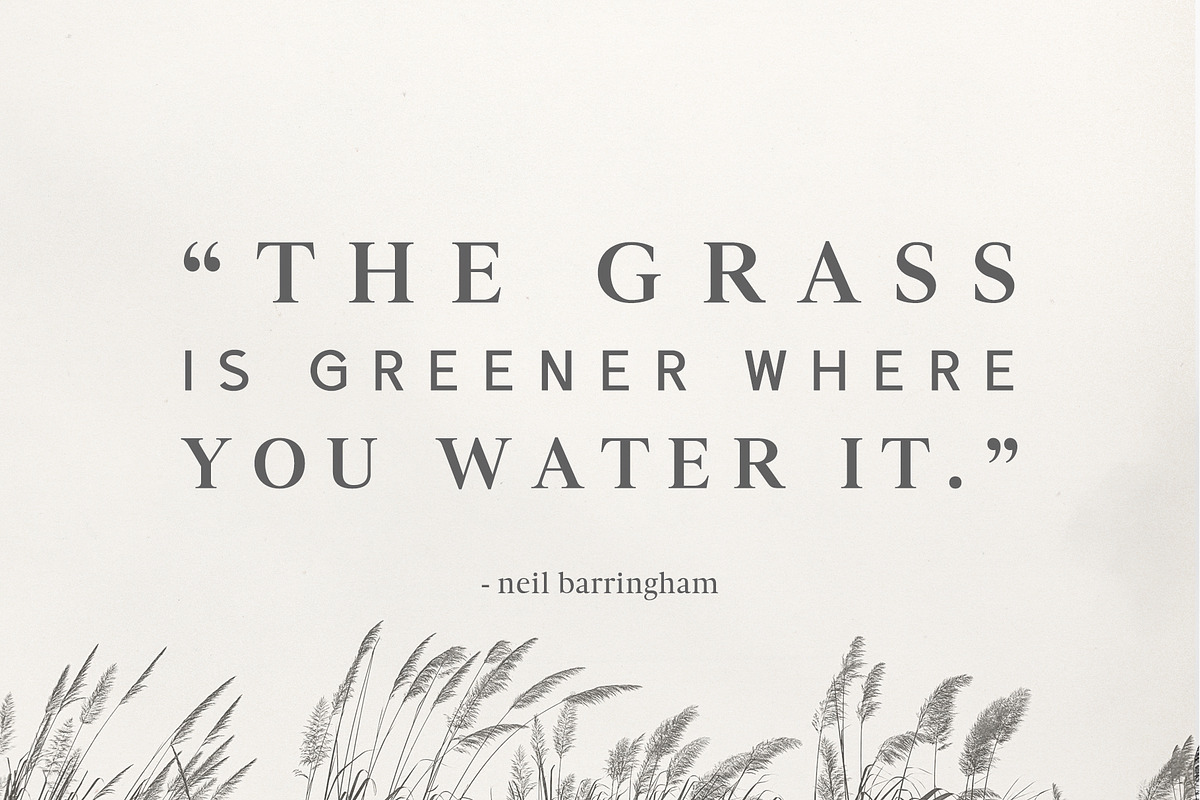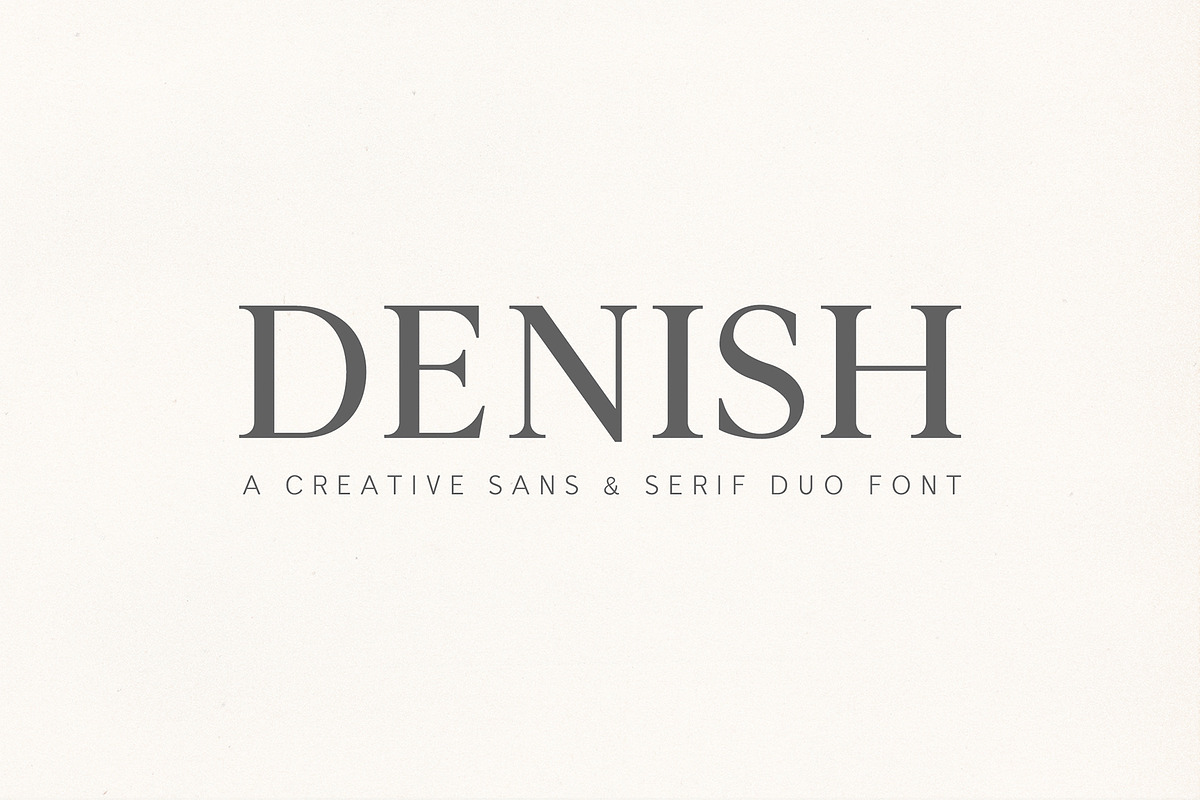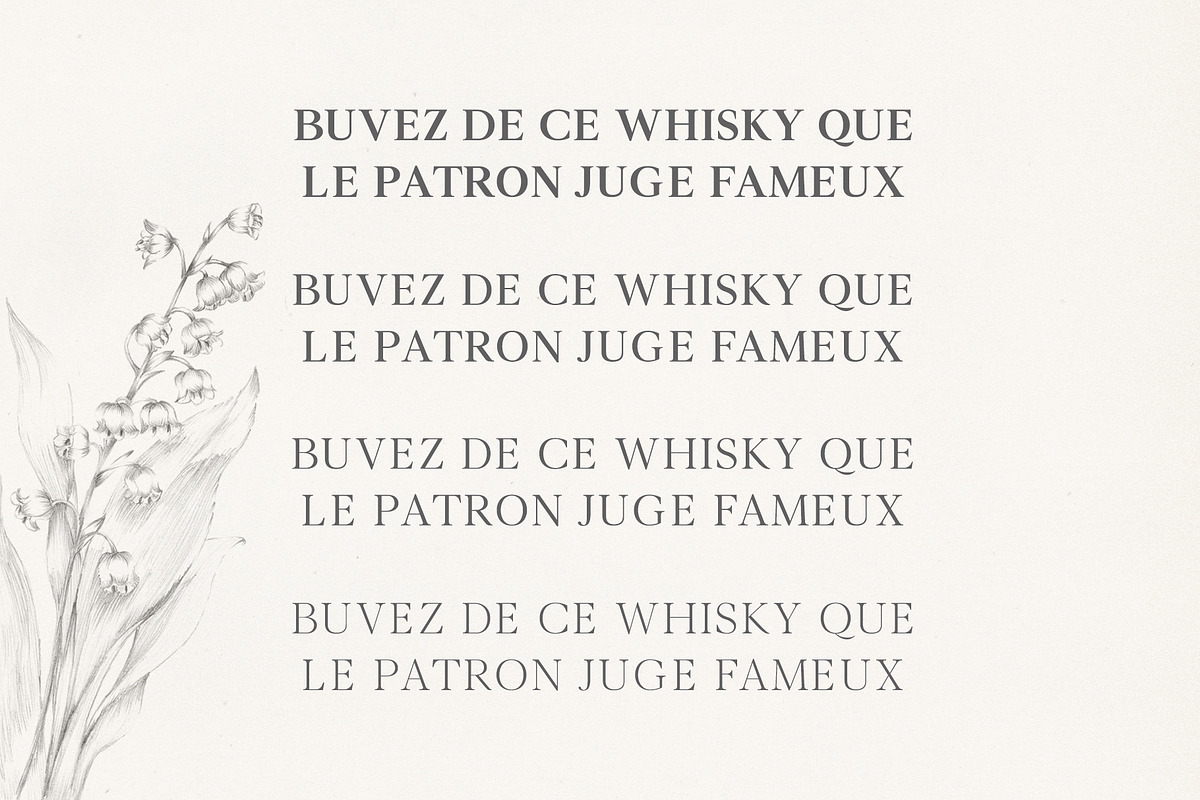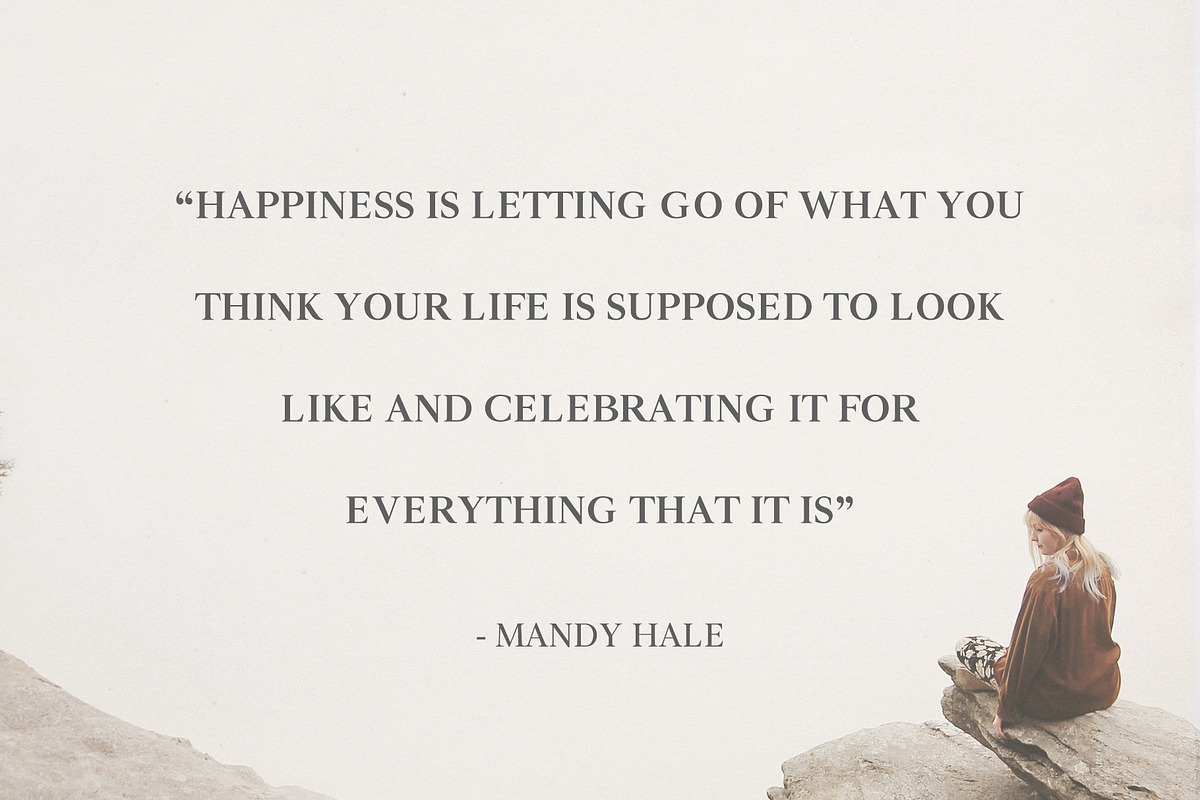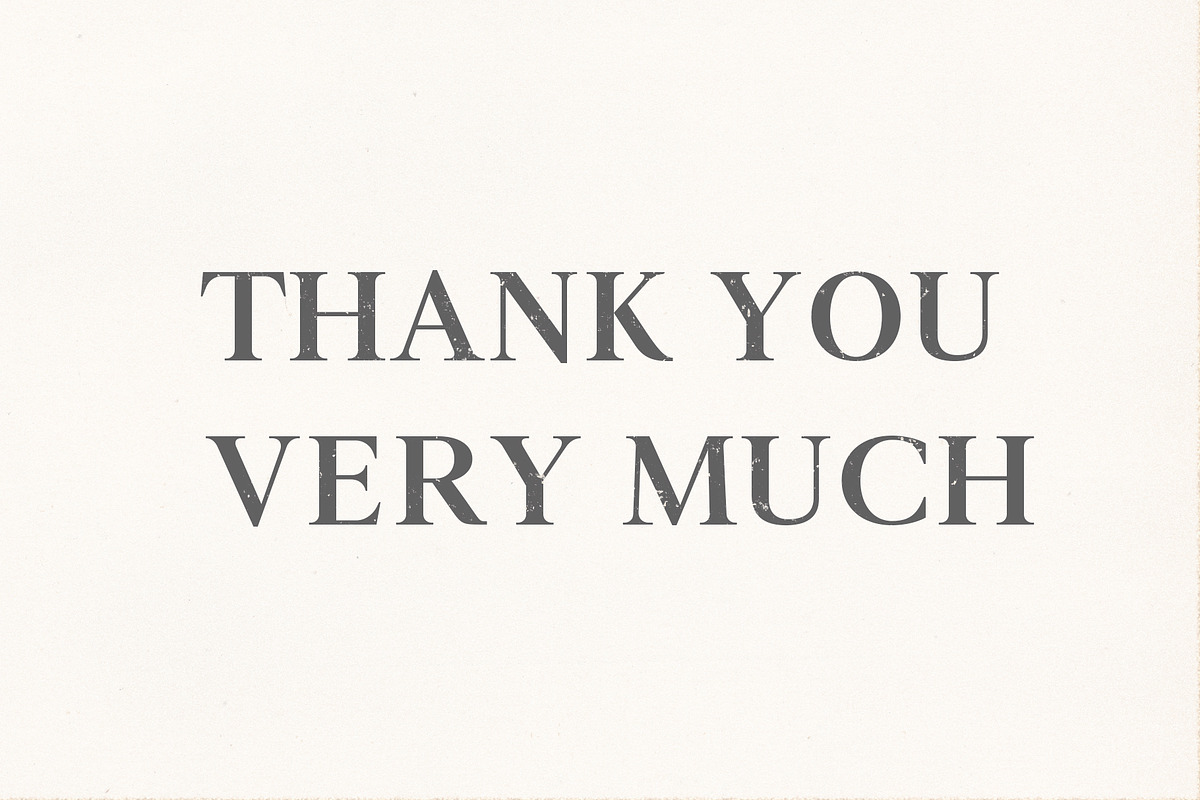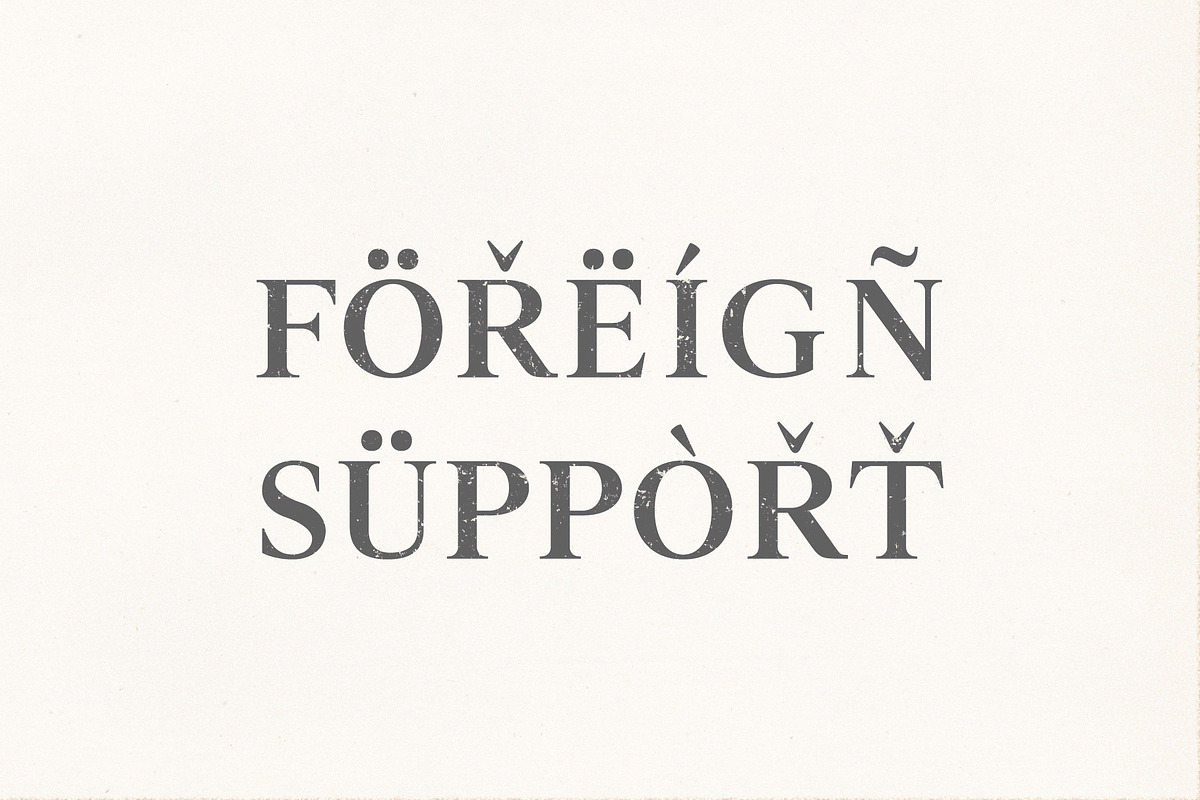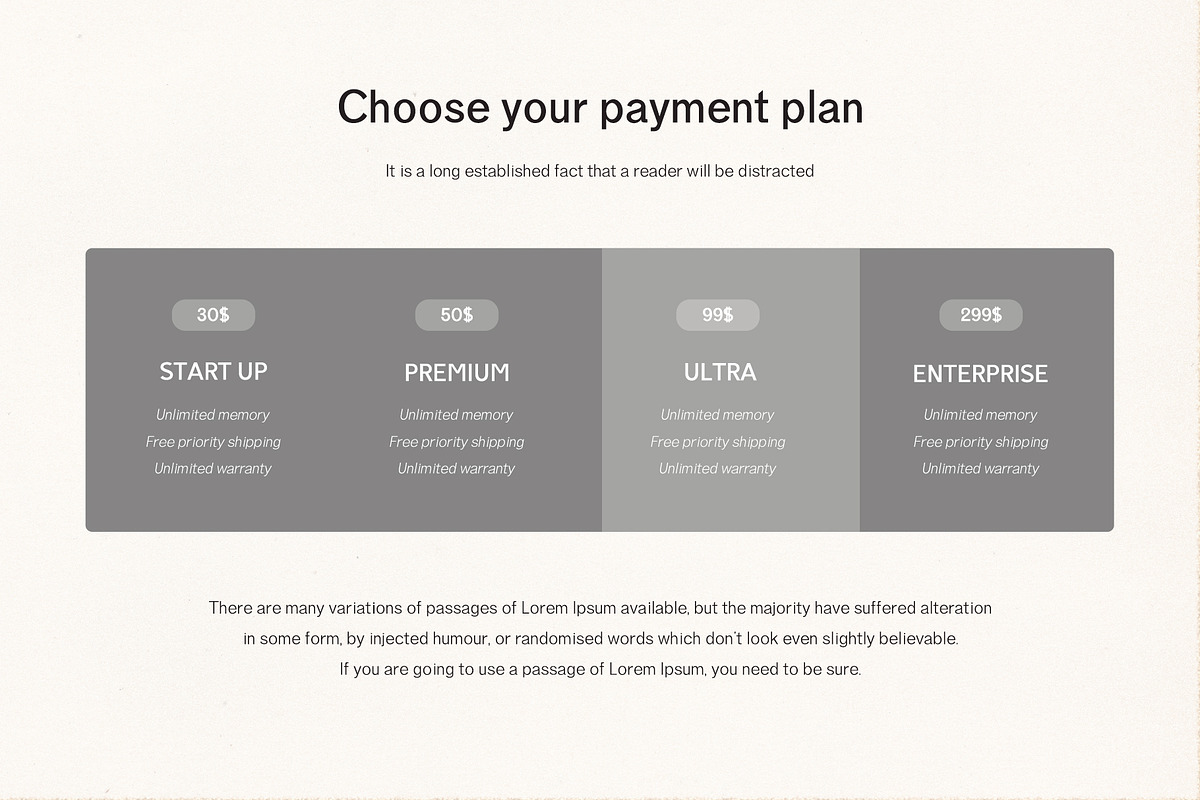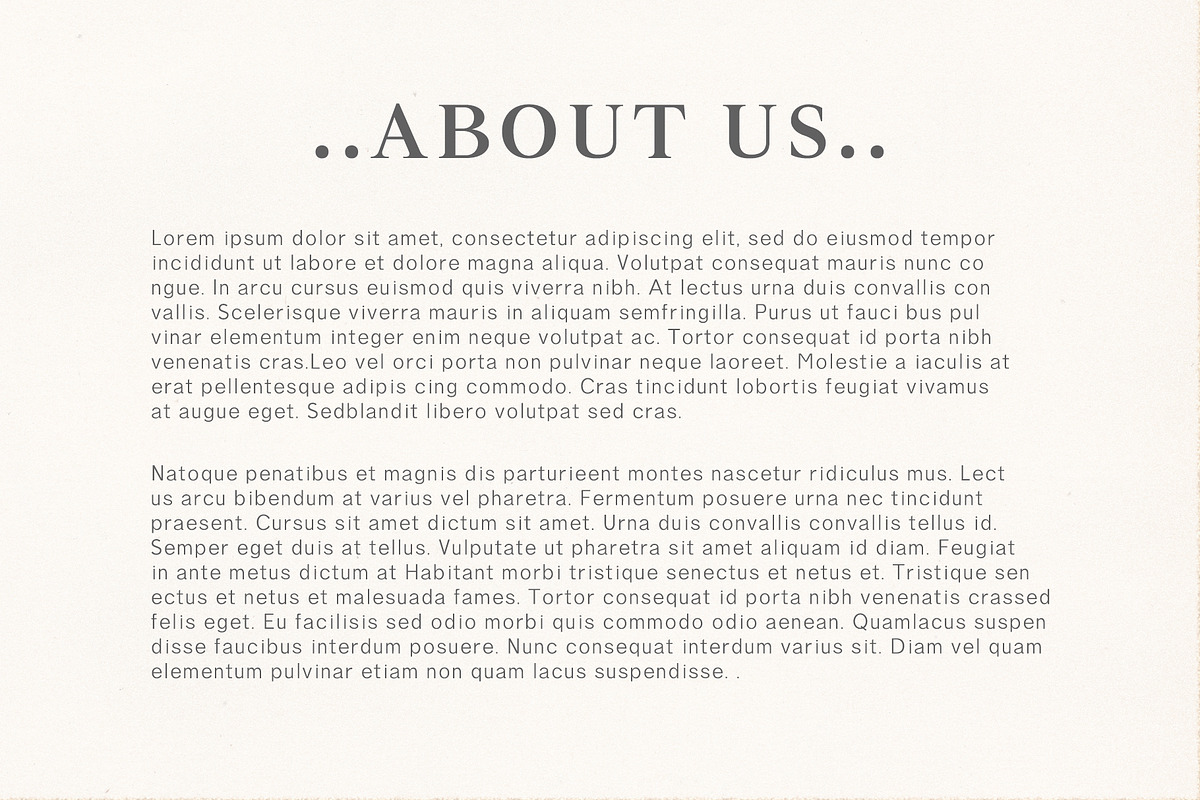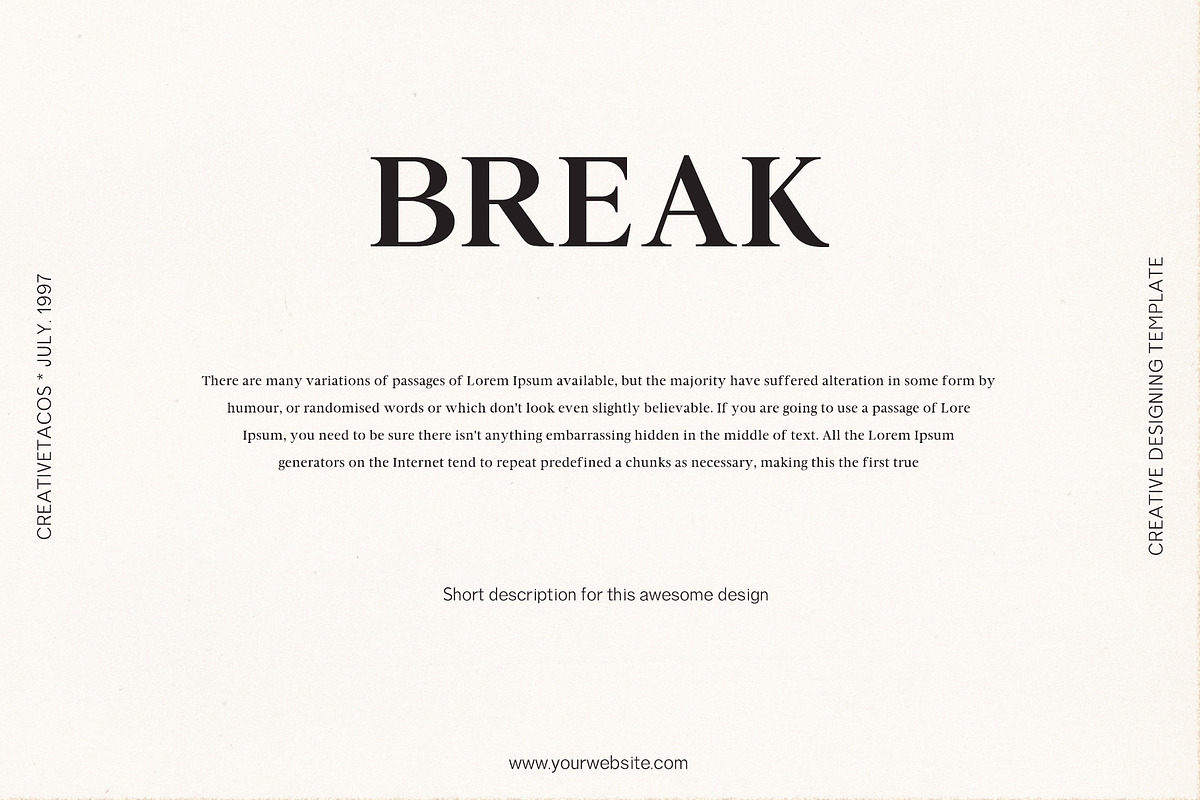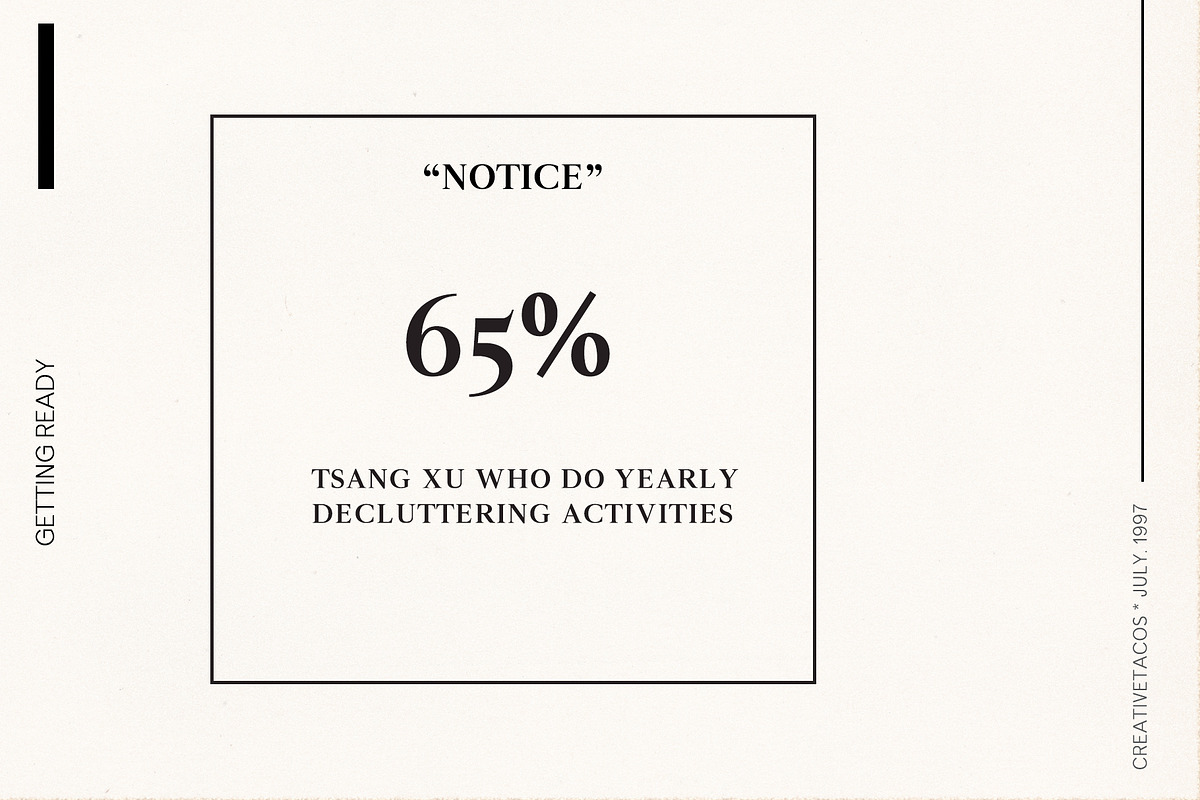
Denish Sans & Serif Duo Font Family
Denish is a gorgeous and sophisticated serif and sans serif font duo are perfect pair to make your design fresh and innovative. It includes uppercase, lowercase, number, punctuation, symbols, with non-english characters. Denish makes it perfect for posters, greeting cards, stationery design, magazine layouts, stickers and stencil design, prints, logotypes, branding, name card, stationary, design title, blog header, quotes, typography, headlines, packaging, presentations, titles, magazines, headings, web layouts, advertising, invitations, packaging design, books, and nearly any creative design.
- Font Weight: Regular, Light, Thin, Medium, and Bold
Denish & Aarielle Font Features:
- Uppercase Multilingual Letters
- Lowercase Multilingual Letters
- Numbers and Punctuation
- Non English Characters ( Latin Supplement + Latin Extended A)